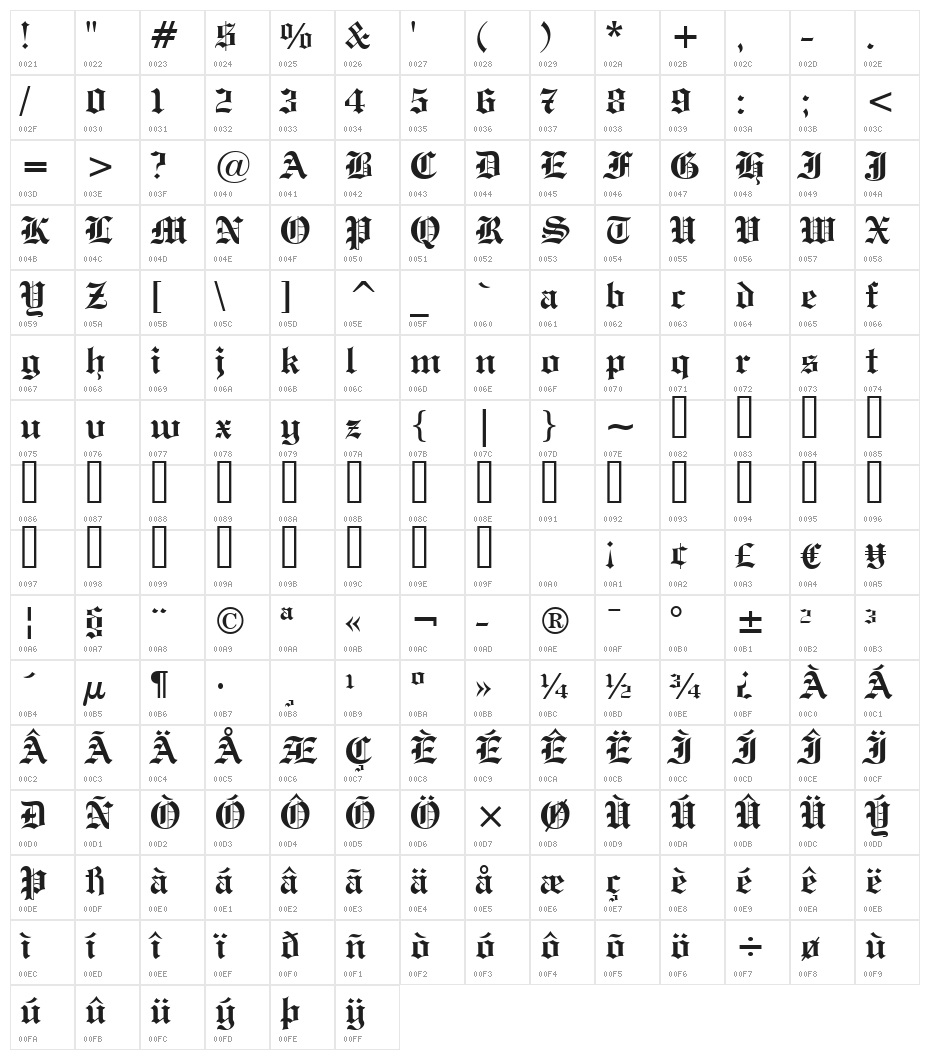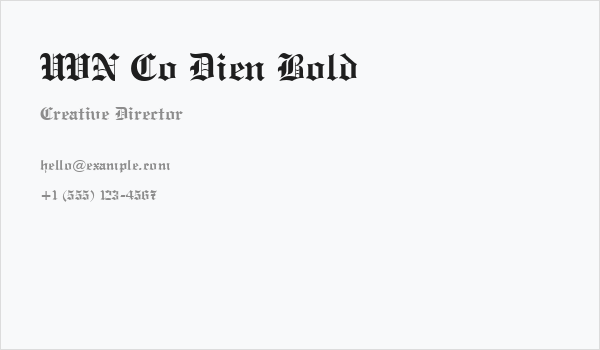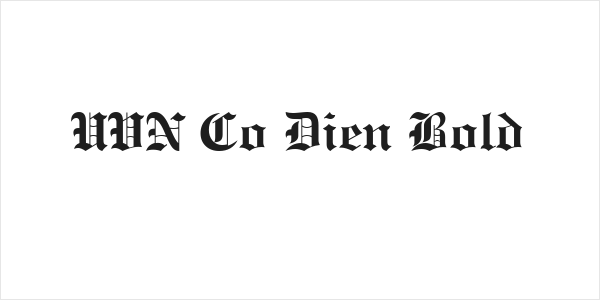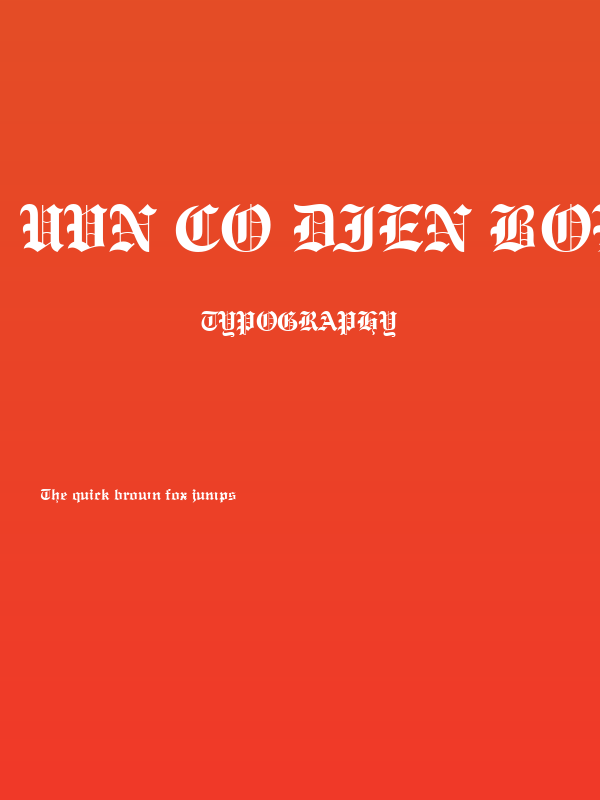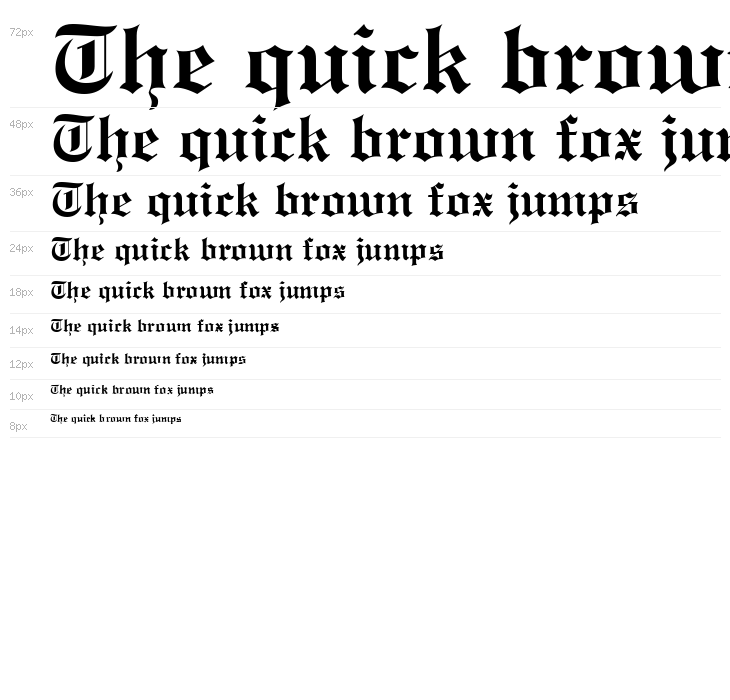
UVN Co Dien Bold Font
UVN Co Dien Bold Description
This font features a bold and striking blackletter style, reminiscent of traditional Gothic scripts. The characters are ornate with sharp, angular lines and intricate details, giving it a historic and authoritative appearance. The uppercase letters are particularly elaborate, with decorative flourishes that enhance their visual impact. The lowercase letters maintain the same intricate style, ensuring consistency across the typeface. Numbers and special characters are equally bold and stylized, making them stand out. This font is ideal for projects that require a touch of medieval or classic elegance.
| Use Case | Headlines, Logos, Decorative text |
| Proposed Projects | Suitable for historical documents, certificates, book covers, posters, and branding that requires a classic or medieval touch. |